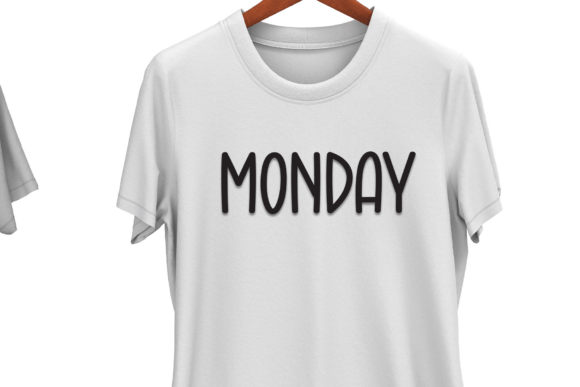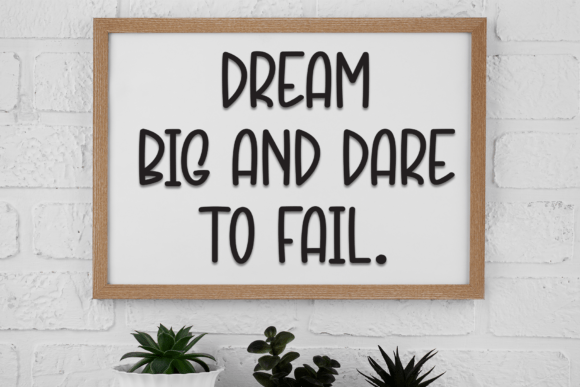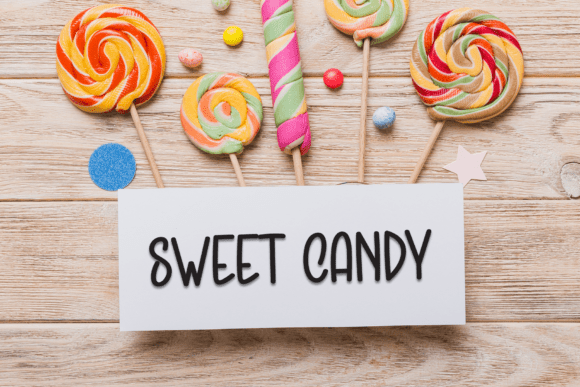
Introduction to School Kids Font
Remember the excitement of rummaging through your grandmother’s old trunk, discovering a trove of colorful stationery and crayons? The thrill of creating something magical with every stroke of your pencil, as the world of imagination unfolded before your eyes? For designers, that same sense of wonder and enchantment can be rekindled with the introduction of the School Kids Font.
This charming display font is more than just a typography element – it’s an invitation to tap into the carefree spirit of childhood. With its transparent background and high-quality design, School Kids Font is perfect for adding a touch of whimsy to your creative project. Whether you’re working on a romantic wedding invitation or a charming greeting card, this font is sure to bring a smile to your face and delight your clients. And the best part? It’s available for a free download, making it an invaluable design resource for any creative project.
So why settle for a generic font when you can add a dash of personality to your design with School Kids Font? Download it today and unleash your inner child, bringing a touch of magic to every project you undertake.
Key Features of School Kids Font
- High-quality design: School Kids Font is designed with precision and care, ensuring a crisp and clear appearance.
- Transparent background: The transparent background of School Kids Font allows for seamless integration into various design elements.
- Unique characteristics: School Kids Font features a playful and whimsical style, making it perfect for educational, children’s, or entertainment-related creative projects.
- Design versatility: This font can be used for various design elements, including titles, headings, and body text, adding a touch of creativity to any project.
Honest Review: School Kids Font
As a designer, I’m always on the lookout for high-quality design resources to enhance my creative projects. Recently, I stumbled upon the School Kids Font, which I’m excited to share my thoughts on.
What works well about this font is its playful and whimsical nature, making it perfect for children’s educational materials, illustrations, or any project that requires a touch of youthfulness. ✨ The font comes in a variety of styles and weights, offering endless possibilities for creative experimentation.
- High-quality design with crisp lines and clear typography
- Transparent background, allowing for seamless integration with images and graphics
- Perfect for educational materials, children’s books, or any creative project requiring a playful touch
However, there are a few limitations to consider. ⚠️ The font may not be suitable for professional or formal projects, as its playful nature may not be taken seriously. Additionally, some users may find the font’s irregularities distracting.
Overall, I’m impressed with the School Kids Font’s potential for creative projects. While it may not be the best choice for all designs, it’s an excellent resource for those looking to add a touch of whimsy and fun to their work.
The School Kids Font is commonly used in educational materials, children’s party invitations, and creative projects that require a fun and playful tone. Its high-quality design makes it a valuable resource for designers and non-designers alike.